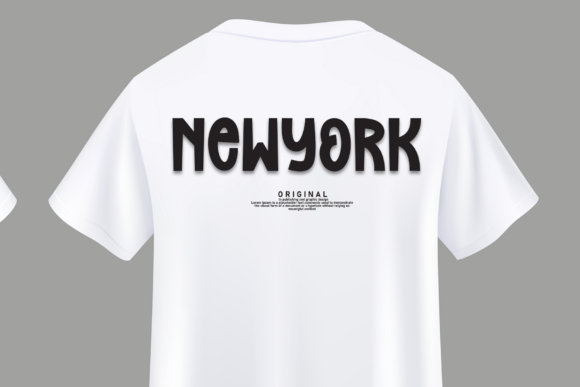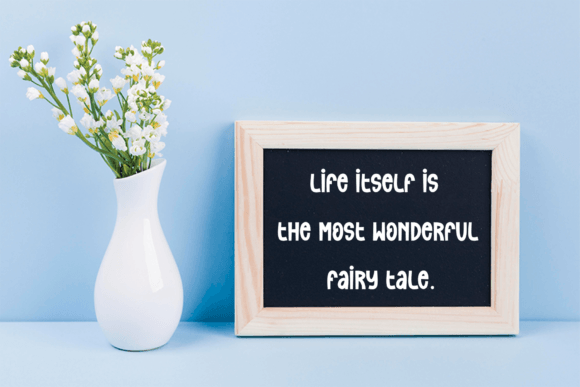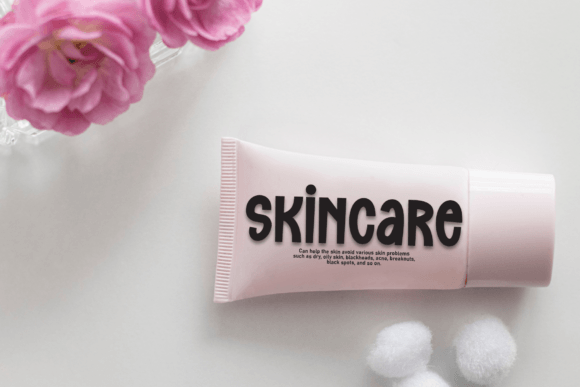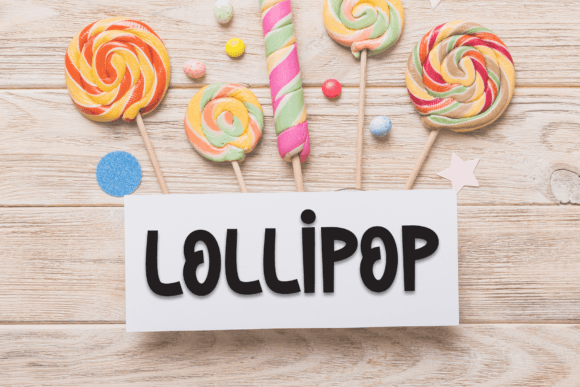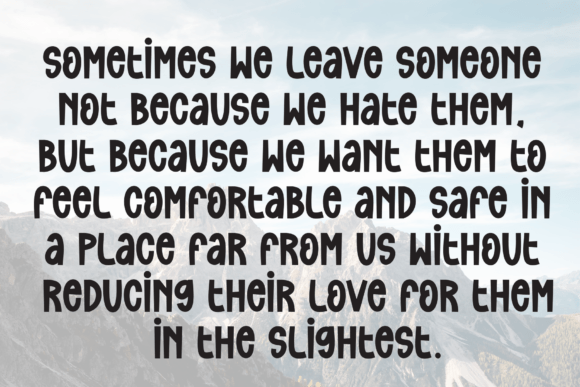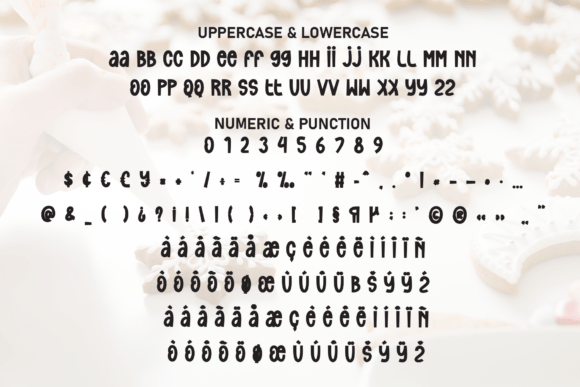
Adding a Pinch of Whimsy to Your Designs
Have you ever sat down at your desk, surrounded by scraps of paper, glue sticks, and half-eaten snacks, and suddenly felt the urge to create something truly special? For many of us, it’s moments like these that spark our most brilliant ideas. And for designers, the right font can be the secret ingredient that takes a project from good to great.
Enter the Gingerbread Font, a delightful handwritten font that’s perfect for adding a touch of whimsy to your designs. With its unique, cute, and playful flair, it’s the ideal choice for crafting elegantly whimsical wedding invitations, heartfelt cards, or any design project that needs a sprinkle of fun. Whether you’re a seasoned pro or a design newbie, the Gingerbread Font is a valuable addition to your toolkit.
Gingerbread Font Key Features
- Font Family: Gingerbread is a sans-serif font family designed for digital use.
- Font Sizes: Supports a wide range of font sizes, from 8pt to 100pt, making it suitable for various design applications.
- Resolution: Optimized for high-resolution displays, including Retina and 4K screens, with clear and crisp typography at any zoom level.
- Unique Characteristics: Gingerbread features a distinctive, modern design with clean lines and geometric shapes, making it perfect for modern branding, digital products, and user interfaces.
Gingerbread Font Review
Gingerbread Font is a unique, festive typeface that brings a touch of warmth and coziness to any design project. Here’s what works well: ✨ The font’s playful, hand-drawn feel is perfect for holiday-themed designs, such as Christmas cards, gift tags, and party invitations. The font also comes in a range of weights, from light to bold, allowing for versatility in your design.
However, there are some limitations to consider: ⚠️ The font may not be suitable for body text, as it can be difficult to read in smaller sizes. Additionally, the font’s intricate details may not print well at high resolutions, which could affect the final product’s quality.
Overall, Gingerbread Font is a great choice for designers looking to add a festive touch to their projects. While it may have some limitations, its unique feel and range of weights make it a valuable addition to any design library.
Design Considerations:
- Use Gingerbread Font for headings and titles to add a festive touch.
- Avoid using the font for body text, especially in smaller sizes.
- Be mindful of print resolution when using the font to ensure the best possible results.
To get the most out of the Gingerbread Font, try using it in bold or italic styles to add emphasis to your text. You can also use it in combination with other decorative fonts to create a unique look.
The Gingerbread Font is perfect for adding a touch of whimsy to your designs, such as:
- Children’s party decorations and invitations